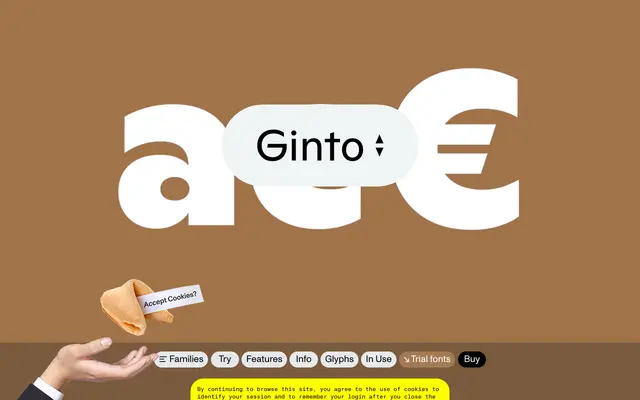
ABC Ginto
Dinamo Typefaces · Seb McLauchlan · 2018
A geometric-humanist sans by Seb McLauchlan that plays circular against rectangular, drawn from twentieth-century sans research and 1950s and 1960s phototype.
A geometric-humanist sans by London-based Seb McLauchlan, developed during research into twentieth-century sans-serif typefaces and the shift from Modernist purity to the more baroque, animated phototypesetting styles of the 1950s and 1960s. The system has two sister families. Ginto is compact and poised, with weights from Thin to Ultra, while Ginto Nord raises x-height and widens characters for chunky display use, with weights from Hairline to Ultra. Both come in standard and Condensed widths, and Ginto's identity work for Discord and others has made it a staple of contemporary brand systems.
Dinamo describes ABC Ginto as an exuberant geometric-humanist typeface that plays the tension between circular and rectangular forms, remixing strict twentieth-century Modernist purity with the more baroque, animated phototypesetting styles of the 1950s and 1960s.